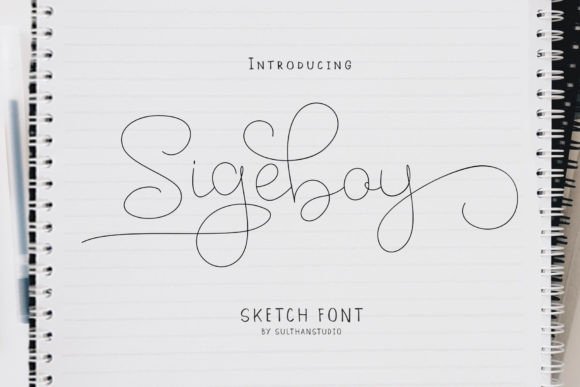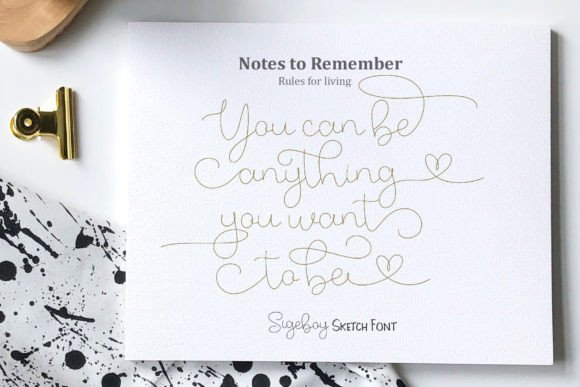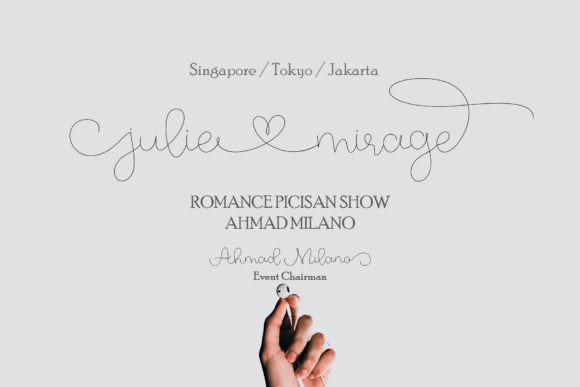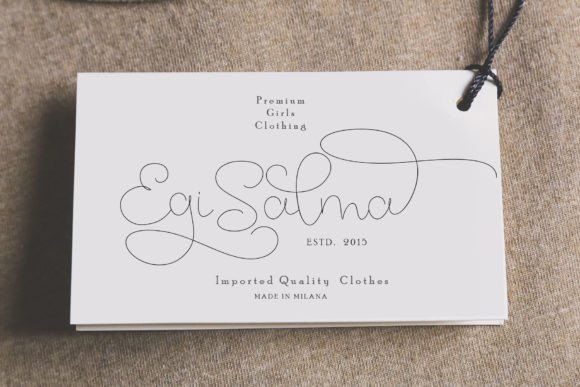
Sigeboy Font: Unique Handwritten Script for Elegant Logo Design
About the Sigeboy Font
Let us introduce you to Sigeboy Font, where timeless design meets modern craftsmanship. Sigeboy Handwritten font using a pen with one line and not thickened, ideal for all things sketch pens, engravings, and foil pens! Sigeboy is perfect for greeting cards, logos, clothing designs, home decor, prints, quotes, and more!
Sigeboy Font Usage Examples
Sigeboy Font Example